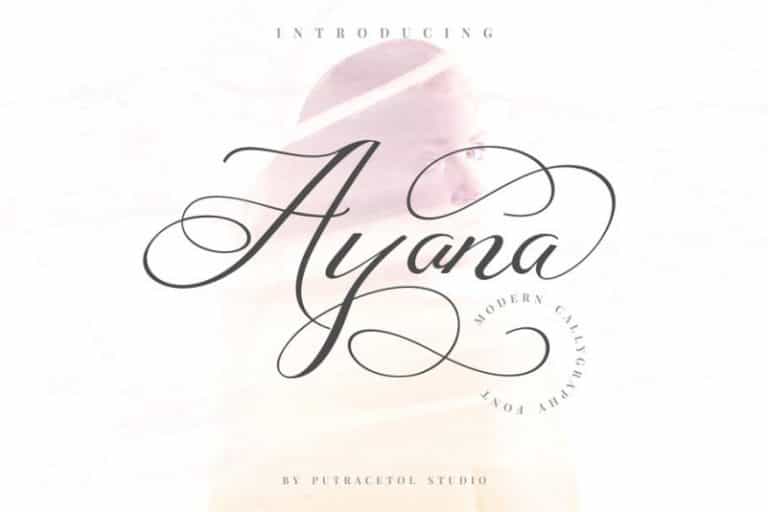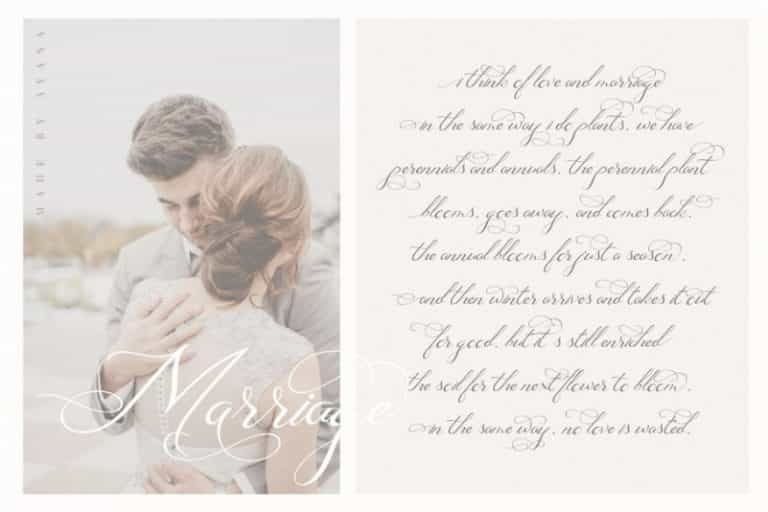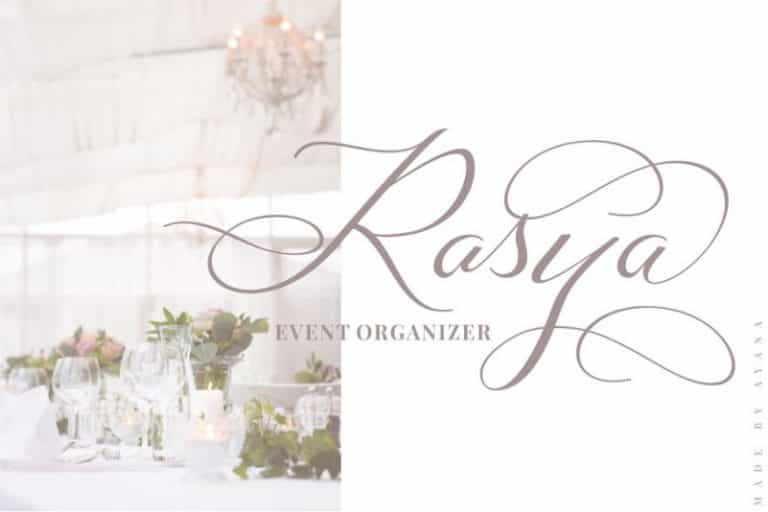
Ayana Font– If you are in search of a new calligraphic typeface for your project, then this font is the right choice. Ayana is a contemporary calligraphy font with the elegant style. This font is a womanly, classy, untidy ,up-to-date and luxurious. Ayana is suitable for branding, wedding invitation and card, elegant logo, poster, packaging, stationery , website etc.